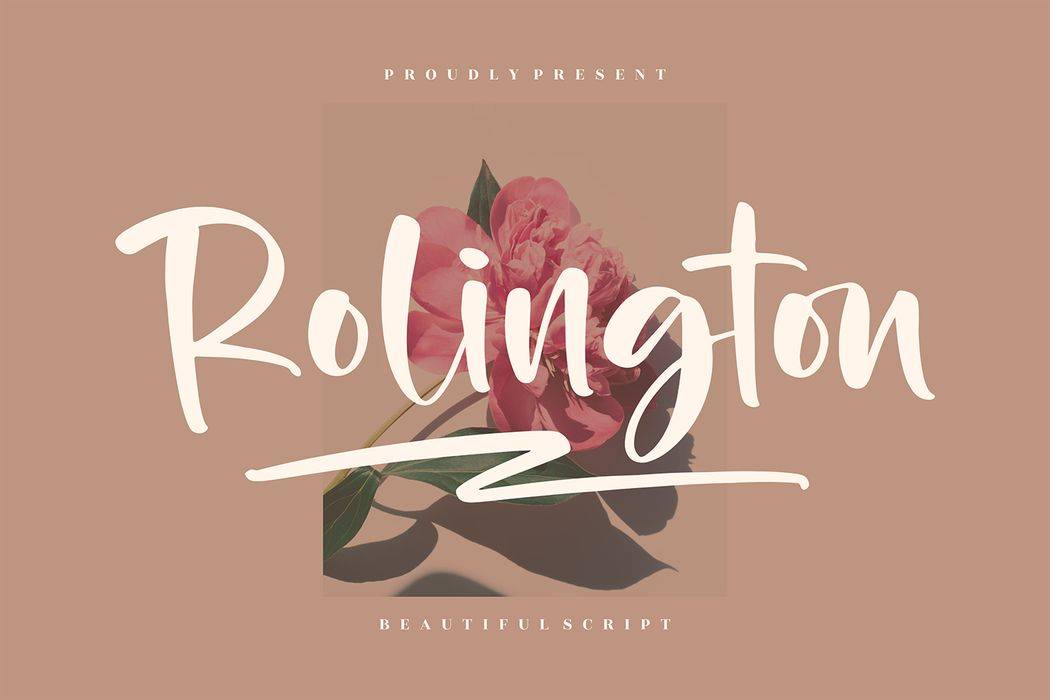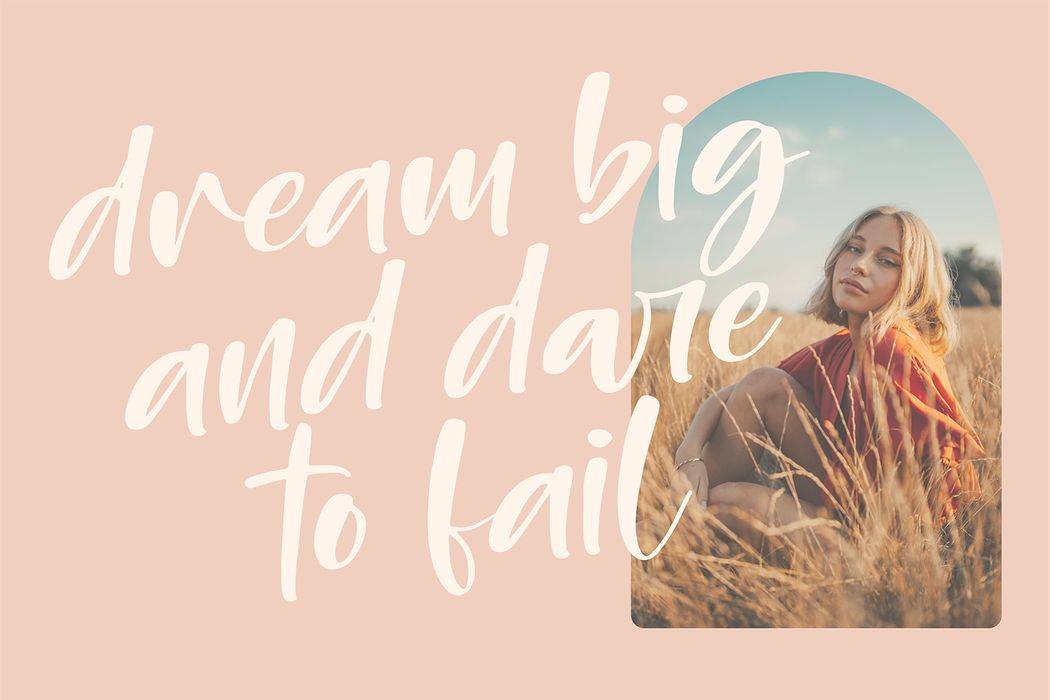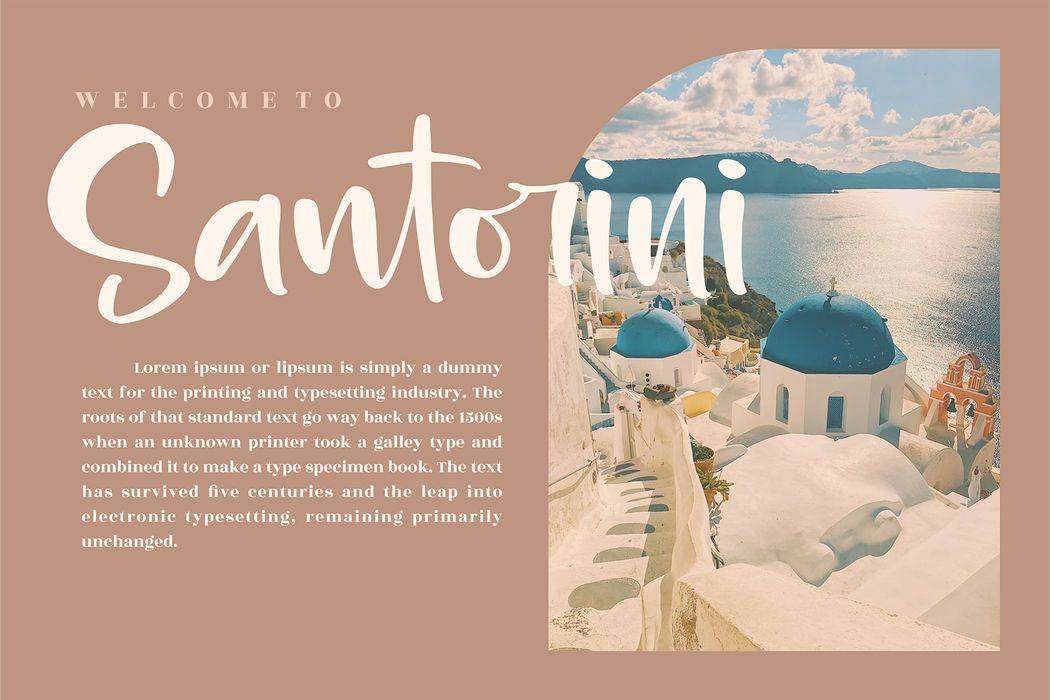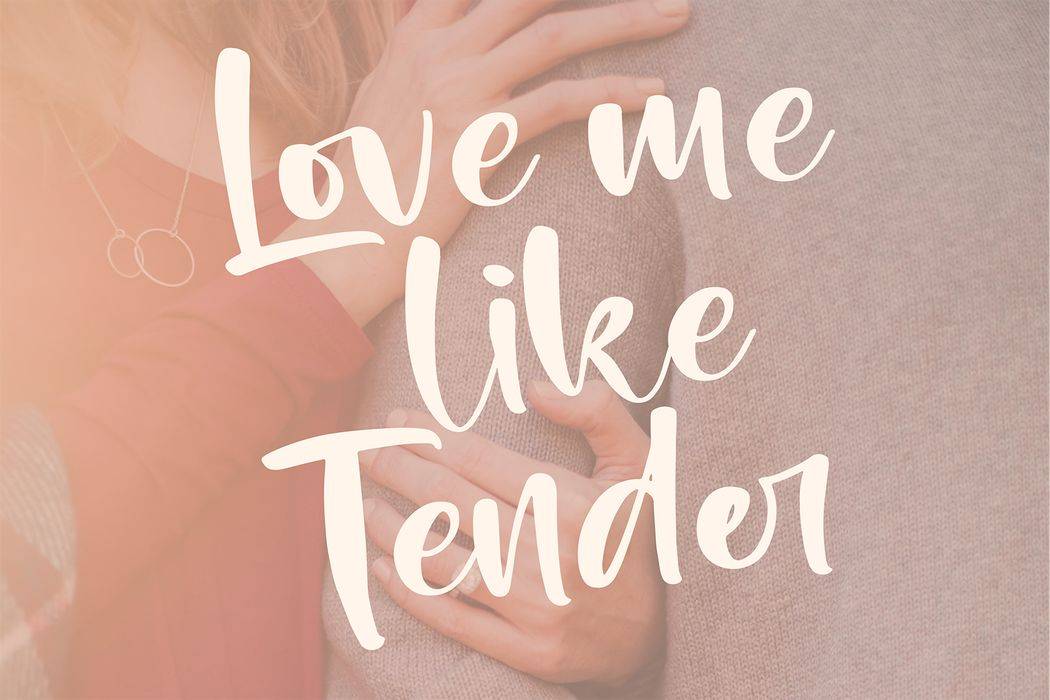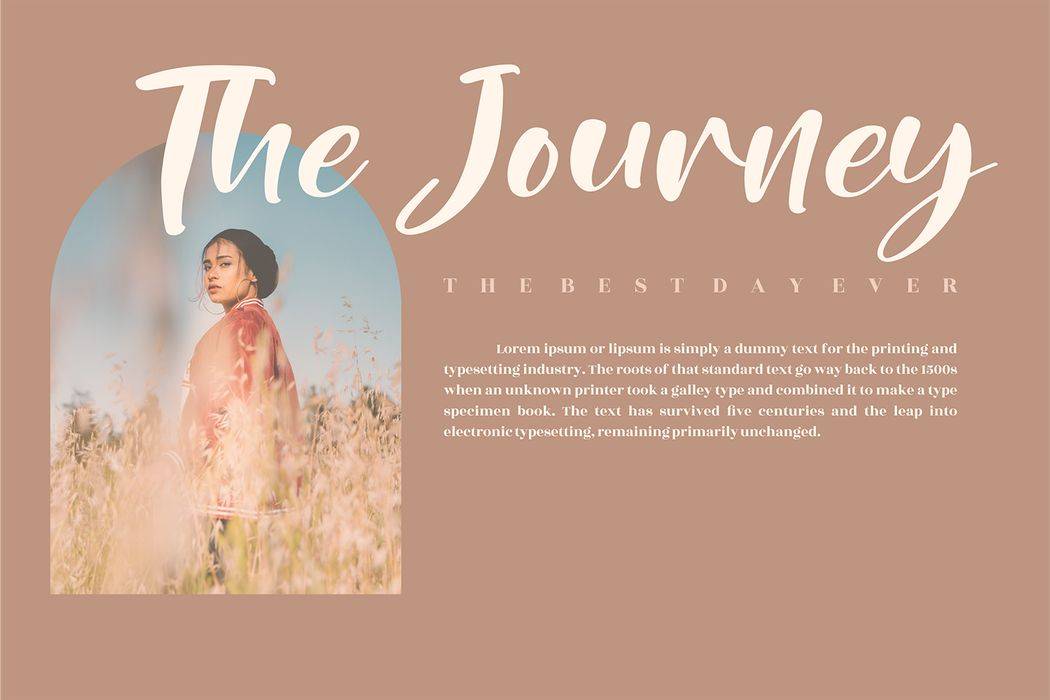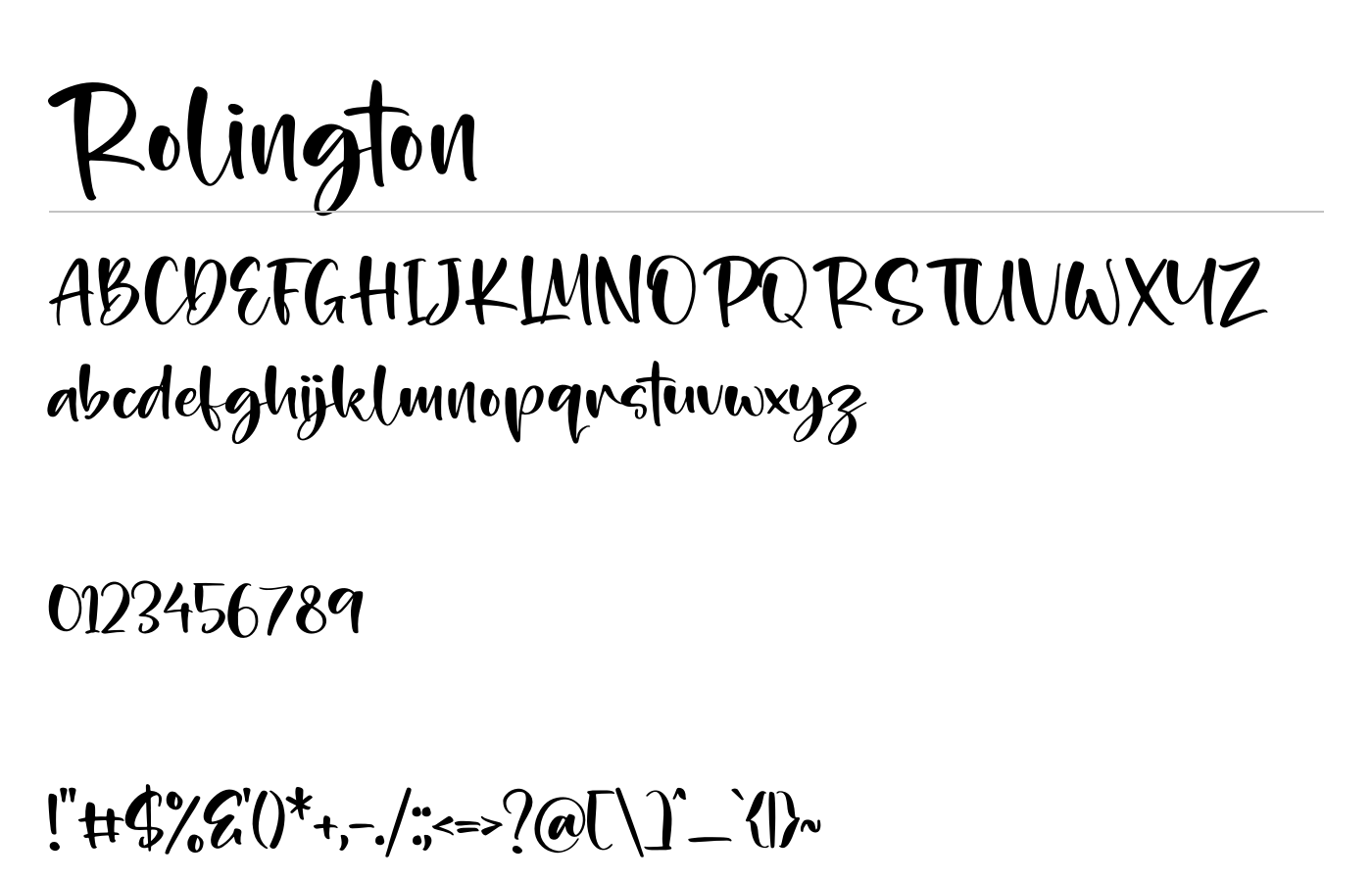
Rolington is a lively and modern handwritten script font characterized by its casual brushstroke style and medium weight, creating a friendly and approachable feel. Its tall x-height and slightly uneven, organic letterforms give it a personal, expressive touch, making it perfect for creative branding, invitations, and playful headlines that want to convey warmth and personality.
Rolington Font
About Rolington Font